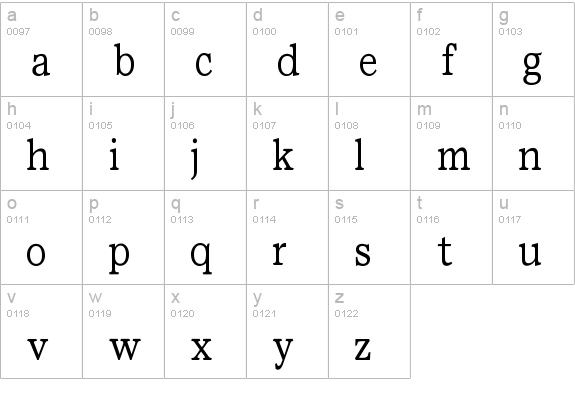
PacellaBook Font Details
Introducing PacellaBook, a stunningly elegant font that will take your designs to new heights. With its sophisticated curves and timeless appeal, PacellaBook brings a touch of class to any project. This versatile font is perfect for a wide range of applications, from stylish invitations to sleek logos or eye-catching headlines. Whether you're designing for print or digital, PacellaBook effortlessly combines legibility with a touch of artistic flair. But that's not all - PacellaBook is not only aesthetically pleasing, but it's also free! Yes, you heard it right. This incredible font is freely available to download at FontsMarket.com. Now you can add a touch of elegance to your designs without breaking the bank. Once you've experienced the beauty of PacellaBook, you'll wonder how you ever worked without it. Its clean lines and balanced proportions make it a joy to work with, and its versatility ensures that it will become a staple in your font collection. So why wait? Download PacellaBook today from FontsMarket.com and start transforming your designs into works of art. With this breathtaking font at your fingertips, the possibilities are endless. Whether you're a seasoned designer or just getting started, PacellaBook will elevate your creations to new heights of sophistication.